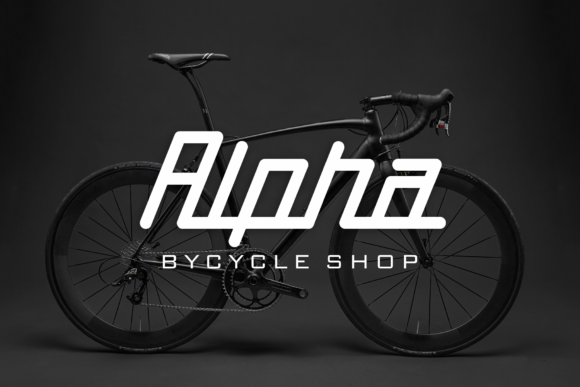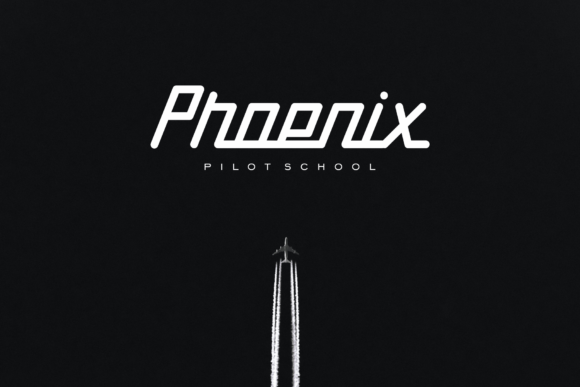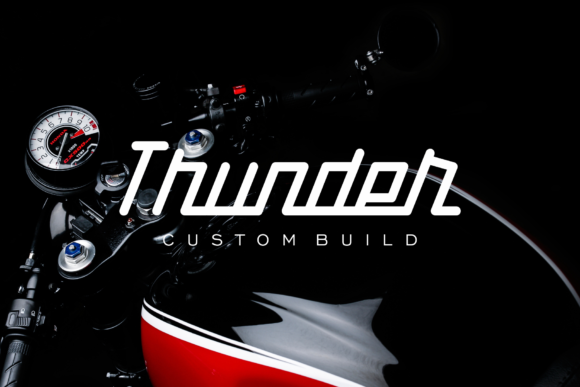
Introduction to Petroline Font
Have you ever been working on a creative project, staring at a blank page or screen, and suddenly you hit a design block? That’s when you need a little spark of inspiration to get your imagination flowing. For designers, finding the right font can make all the difference in bringing a design to life. And that’s exactly where Petroline Font comes in – a modern script that’s sure to add a touch of contemporary charm to any design.
With its sleek and elegant lines, Petroline Font is a valuable resource for designers looking to create high-quality designs with a personal touch. Whether you’re working on a logo, brochure, or website, this versatile font is sure to impress. And the best part? It’s available for a free download, making it an accessible design resource for designers of all levels.
Petroline Font Key Features
- High-quality design resource ideal for creative projects requiring a modern and sleek aesthetic.
- Features a transparent background, allowing for seamless integration into any design or layout.
- Designed with precision, ensuring crisp and clear readability at high resolutions (up to 300 DPI).
- Perfect for use in digital and print media, including logos, branding materials, and advertisements.
- Includes a comprehensive character set, supporting a wide range of languages and characters.
Honest Review: Petroline Font
I recently stumbled upon the Petroline Font, a versatile design resource that caught my attention. Initially, I was drawn to its sleek, modern aesthetic and the fact that it comes with a transparent background. This makes it incredibly easy to use, especially when working on creative projects that require precision and flexibility.
- ✨ High-quality design that’s perfect for a wide range of creative projects
- ✨ Easy to customize and edit, thanks to its transparent background
- ⚠️ Limited character set, which may not be ideal for projects requiring extensive text manipulation
Overall, I’m impressed with the Petroline Font’s potential and versatility. While it may not be perfect, it’s a solid addition to any designer’s toolkit, especially for personal or non-commercial projects. With a little creativity and experimentation, you can unlock its full potential and create stunning designs.
Petroline Font
Tips for Getting the Most Out of Petroline Font
To get the most out of Petroline Font, experiment with different font sizes, styles, and combinations to achieve the desired effect. You can also use the font’s transparent background to create layered designs and graphics.
Common Use Cases for Petroline Font
Petroline Font is suitable for a wide range of creative projects, including graphic design, branding, and digital art. Its high quality and transparent background make it an ideal choice for designers looking to create stunning visuals.